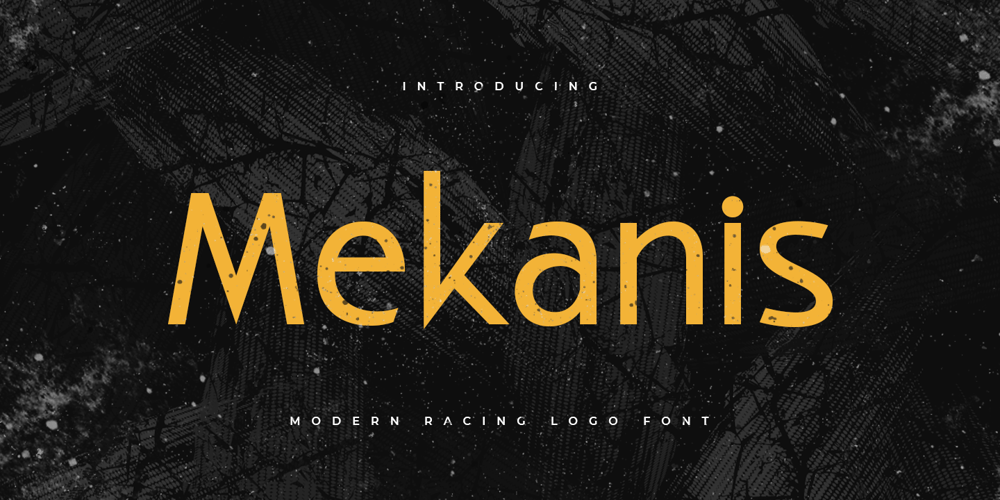
Mekanis
Mekanis font
Mekanis Font Family was designed by Zamroni Hamzah and published by Sensatype Studio. Mekanis contains 1 styles and family package options. Mekanis is a Modern Racing Sport font that created special for Branding, Title and more stand out typography for sport and action. It’s so perfect to add your style and headline overview for sport, technology, actions, and fighting theme. And specially for this font, we crafted for bold action style and modern feels so enjoy to create any project that will show your main idea out.Mekanis Modern Racing Sport font ready with: Creative characters prepared to get best results Preview as a inspirations that you can do with Mekanis font Ready with All Uppercase characters Wish you enjoy our font. 🙂